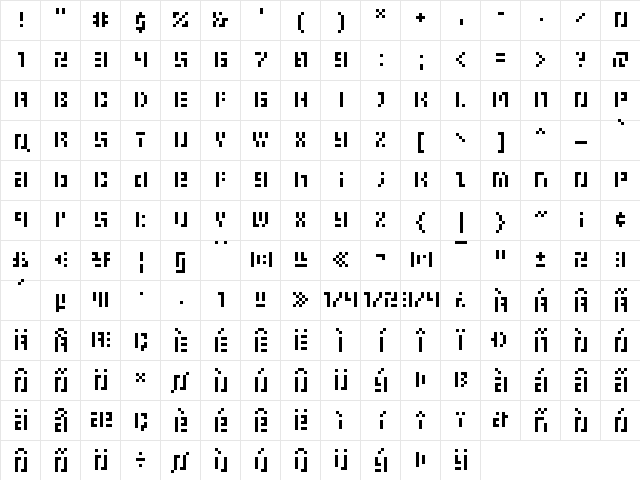
Eboy TNTAlpha Free Font
Eboy TNTAlpha
Style: TNTAlpha
Eboy Family
Eboy TNTAlpha
Design Context for Eboy
Eboy is a composed and adaptable typeface that performs quietly and consistently across a wide range of design contexts.